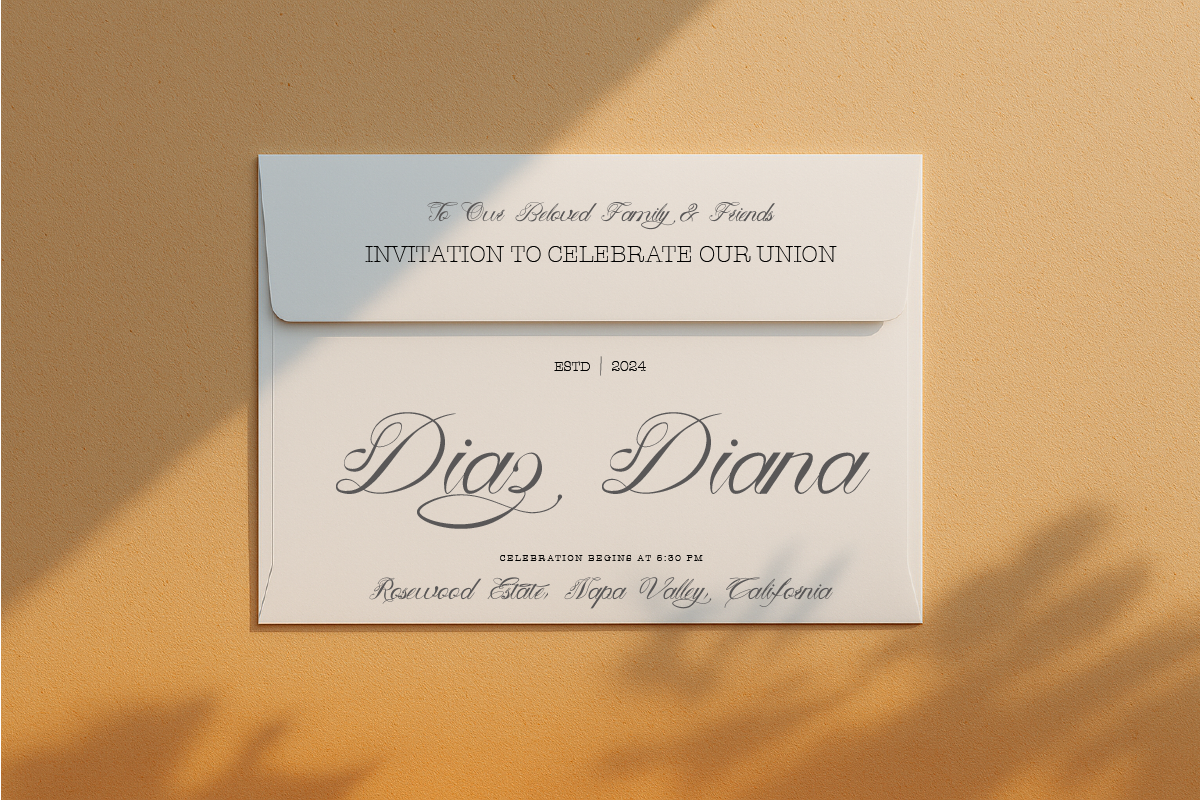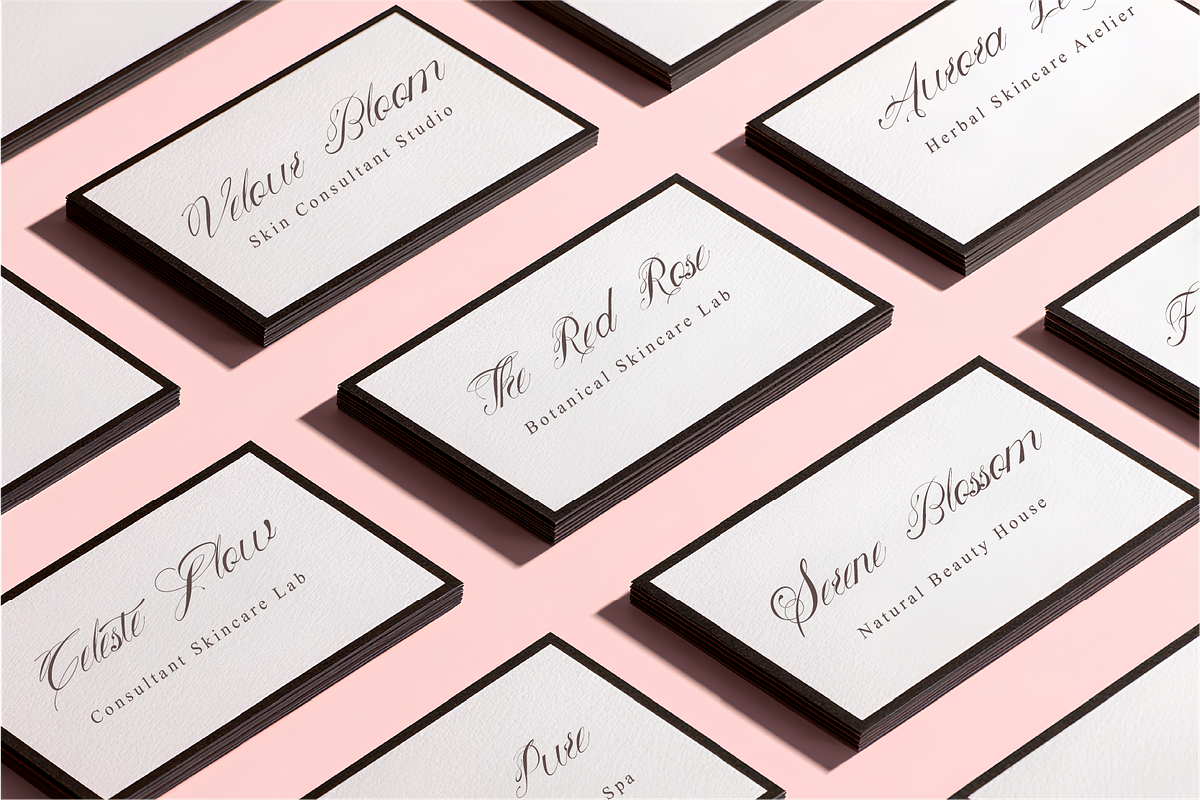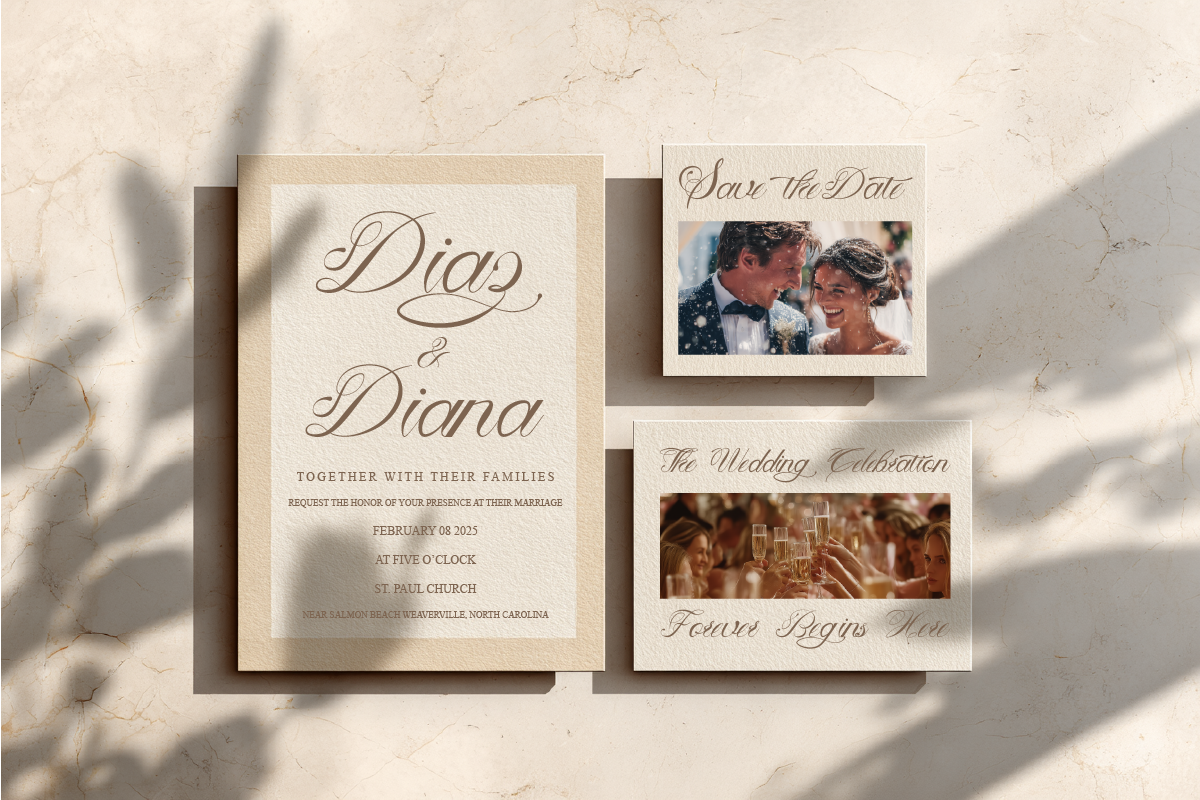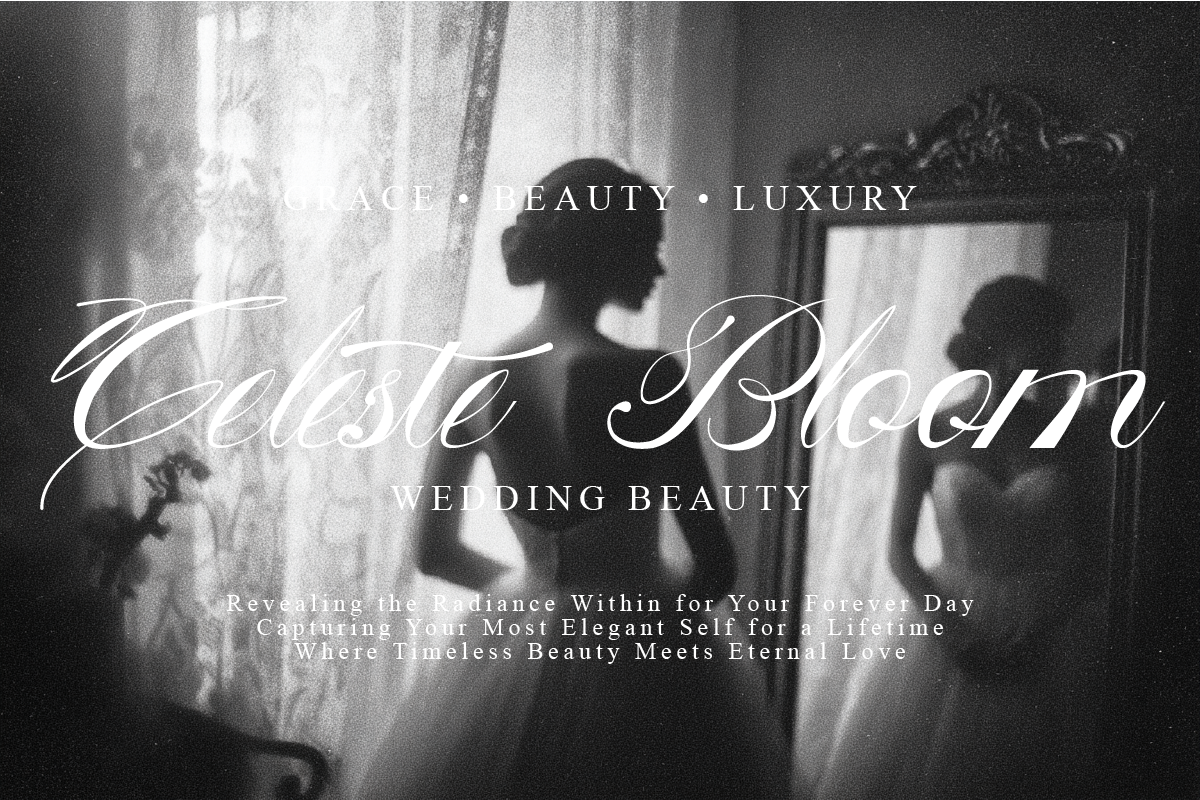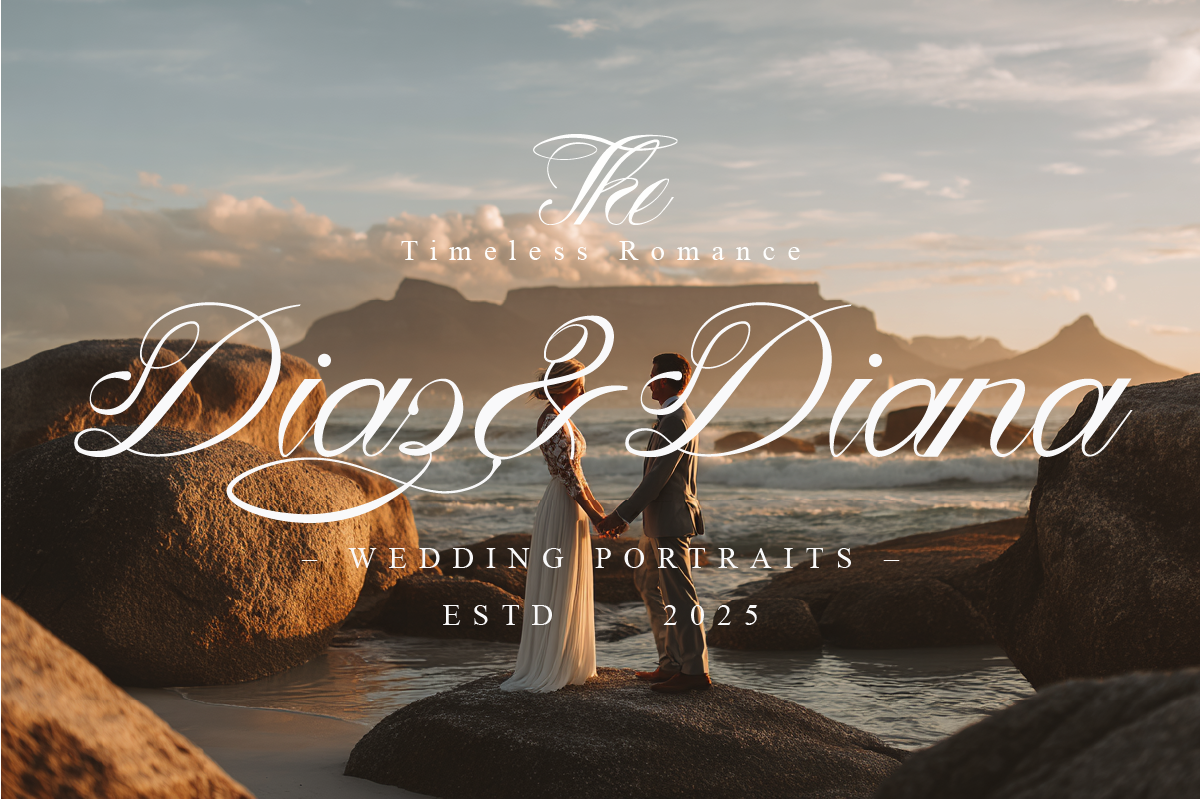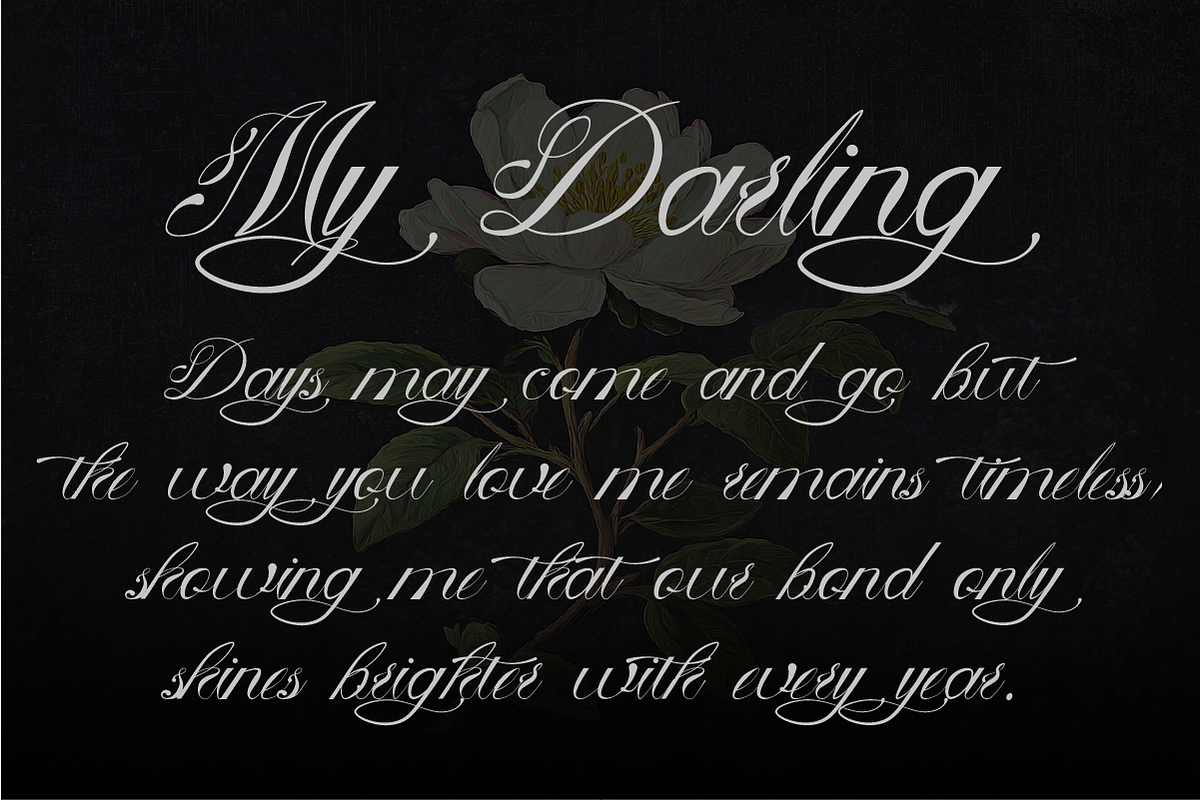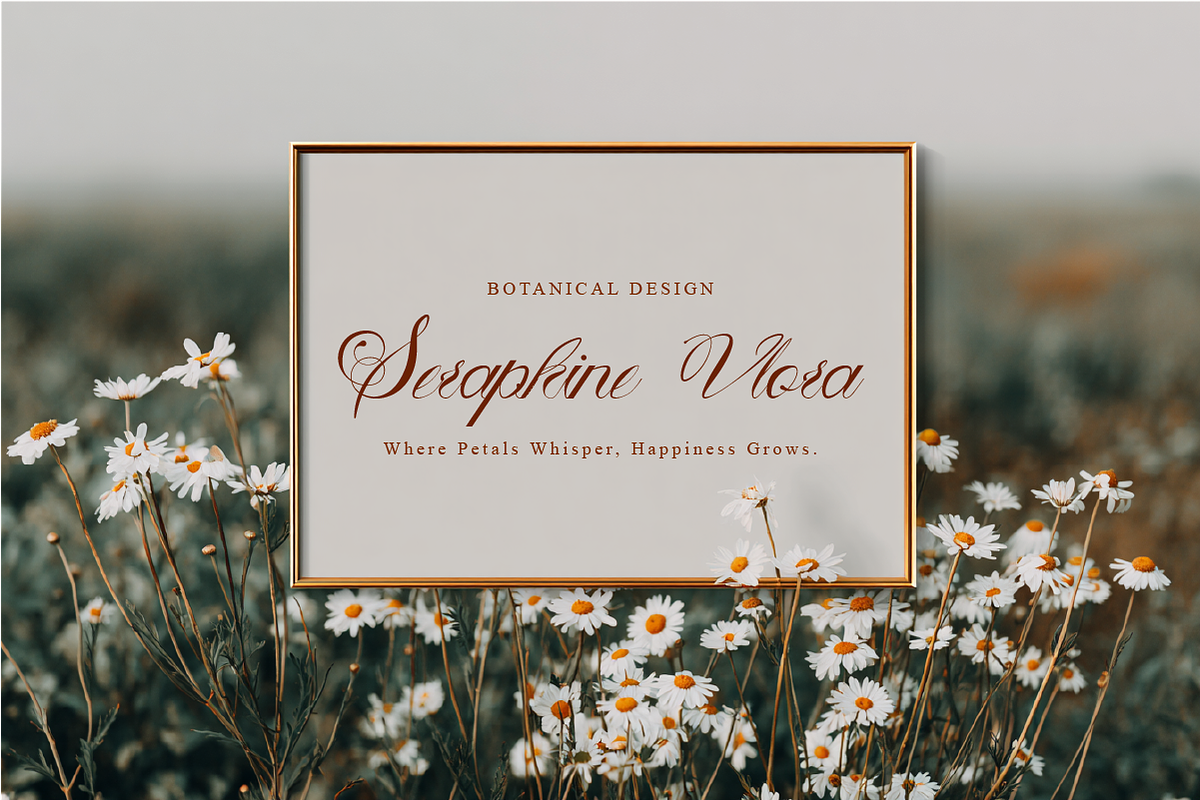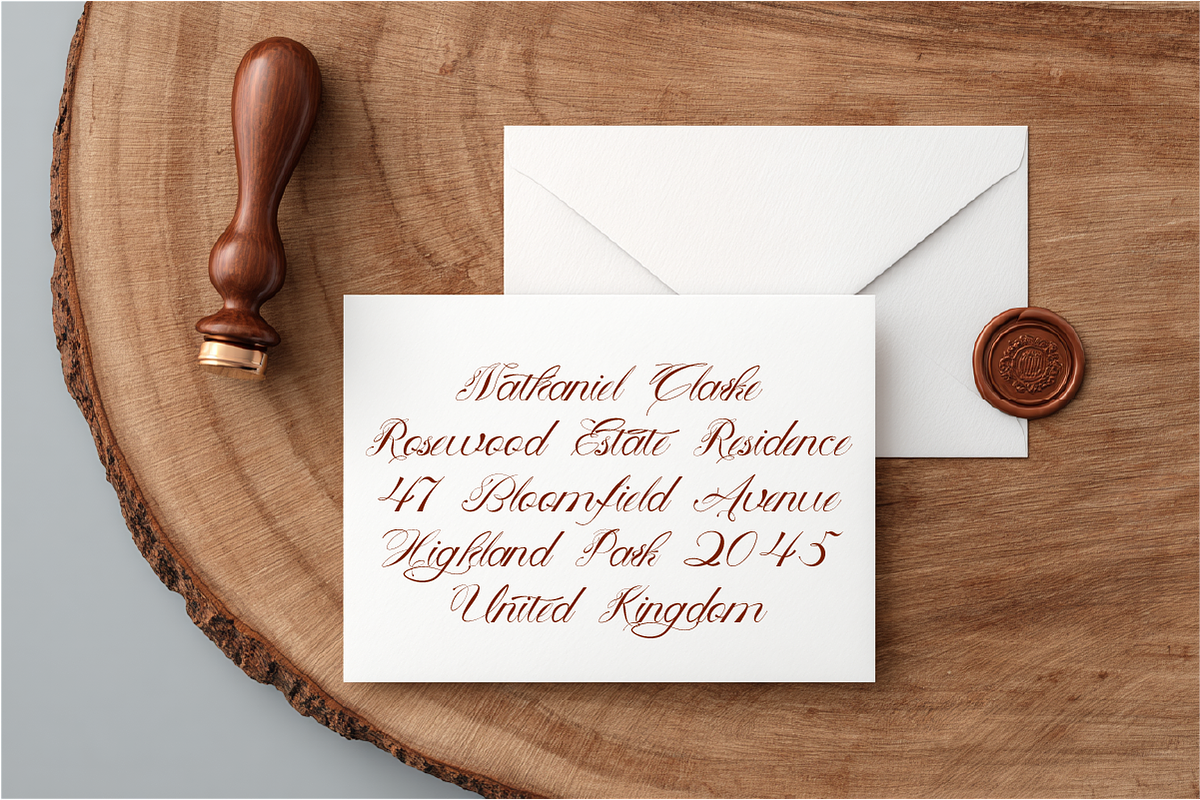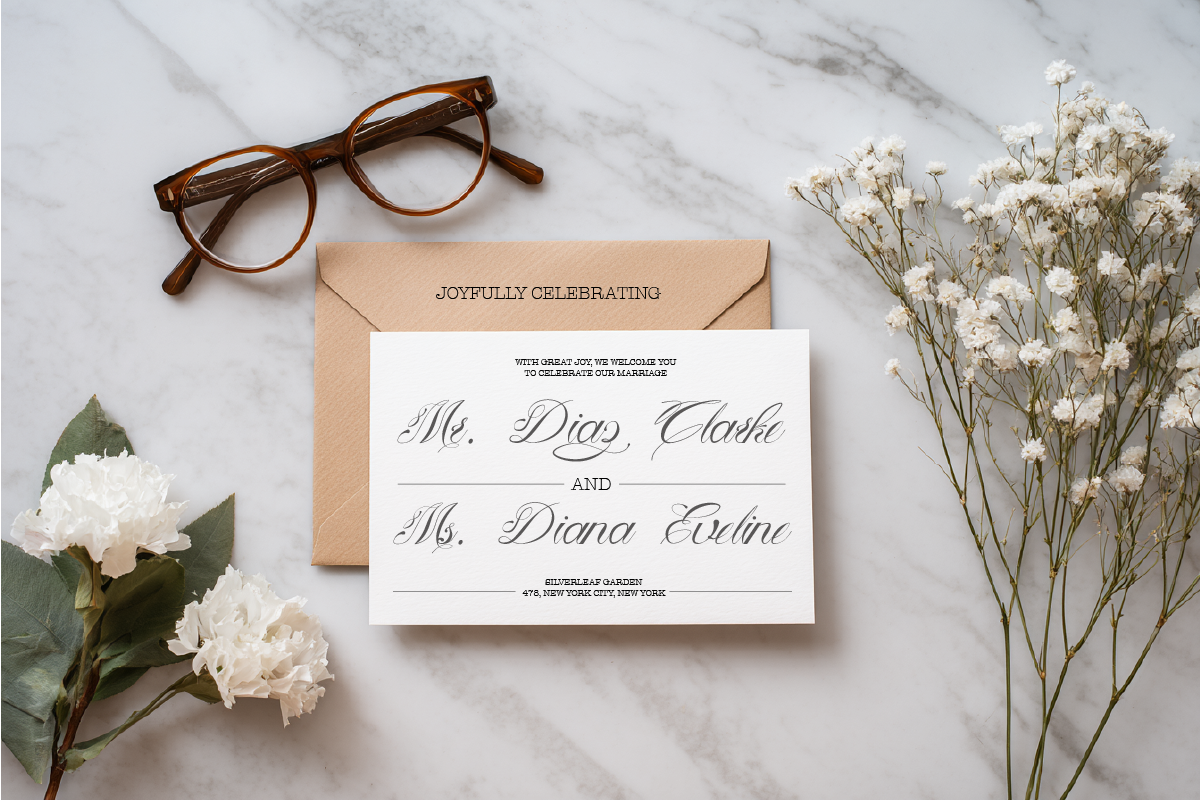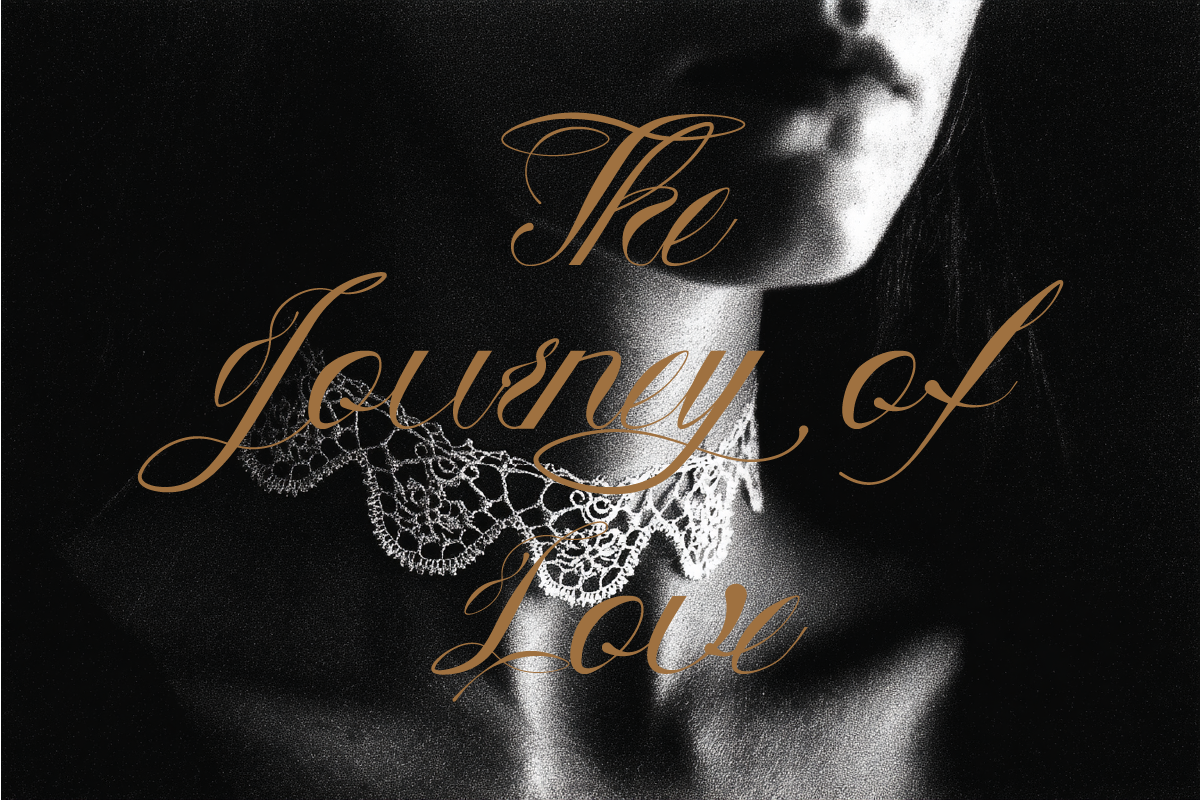
Velouris Script Wedding Calligraphy
Velouris Script is a modern handwritten font with smooth curves and an elegant signature style. Perfect for wedding invitations, branding, logos, and stylish social media posts, it brings a touch of romance and sophistication to every design. Easy to use and versatile, Velouris Script will make your projects look timeless and beautiful.